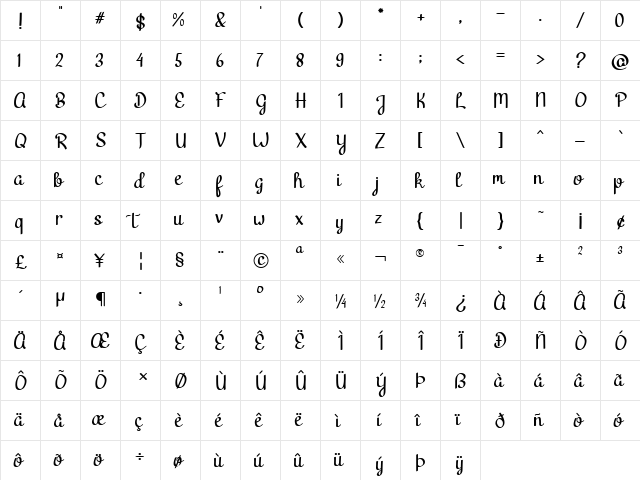
kalimat Regular
| Designer | Jos Gandos |
Design Context for kalimat Typeface
kalimat is a composed and adaptable typeface that performs quietly and consistently across a wide range of design contexts.